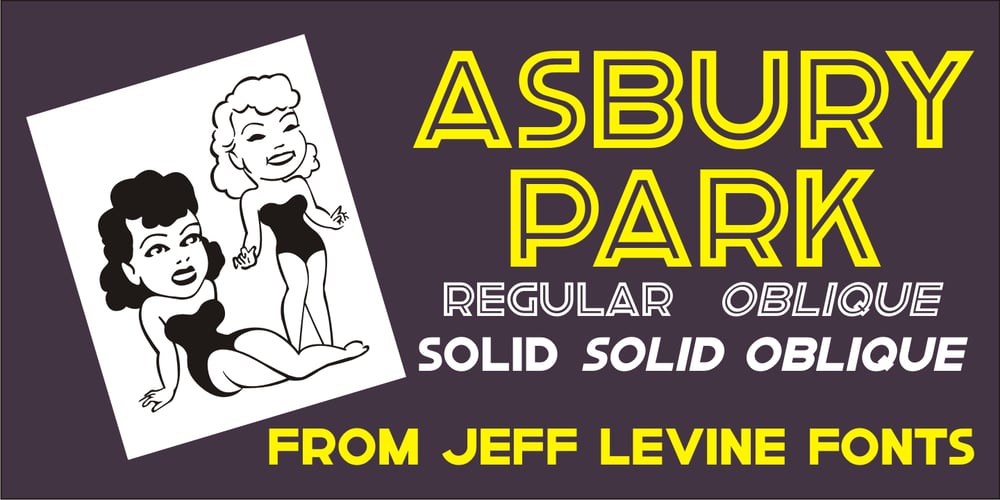
Asbury Park JNL Font Family was designed by published by Jeff Levine. Asbury Park JNL contains 4 styles and family package options. In the 1930s the WPA (Works Progress Administration) sponsored a Federal art project. Many posters were produced that featured government-sponsored cultural events, health and safety tips and various other topics. One such poster from Pennsylvania has the words “Work with Care” in a hand-lettered inline sans design. This became the basis for Asbury Park JNL.